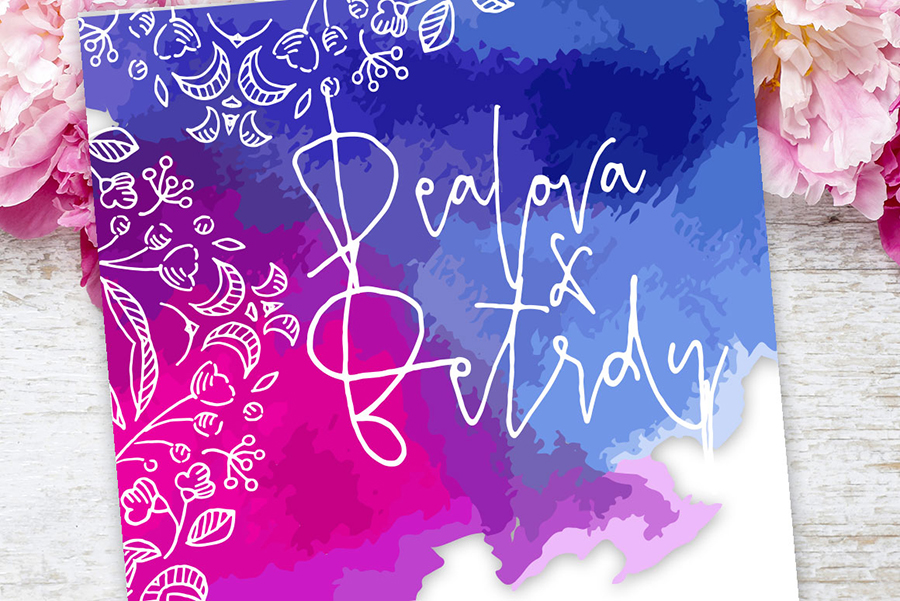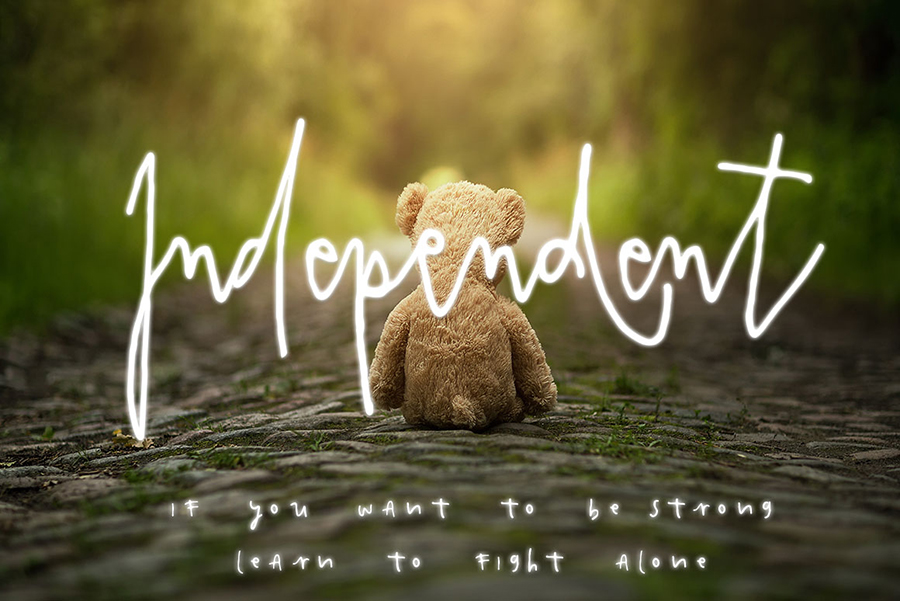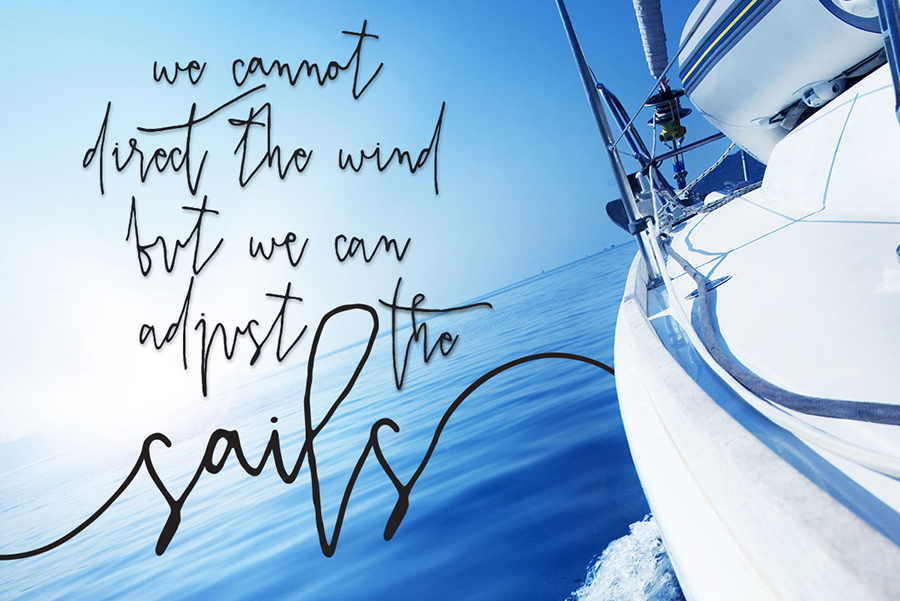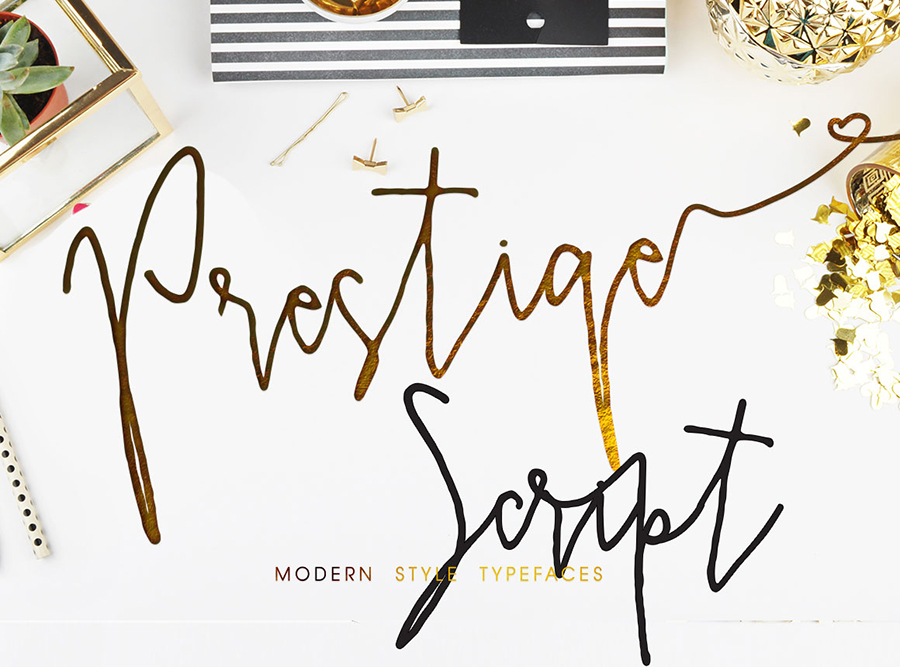
Prestige-Script is a modern natural handwriting style, with a little bit abstract and fancy. Great to give an elegance and natural touches to your design.